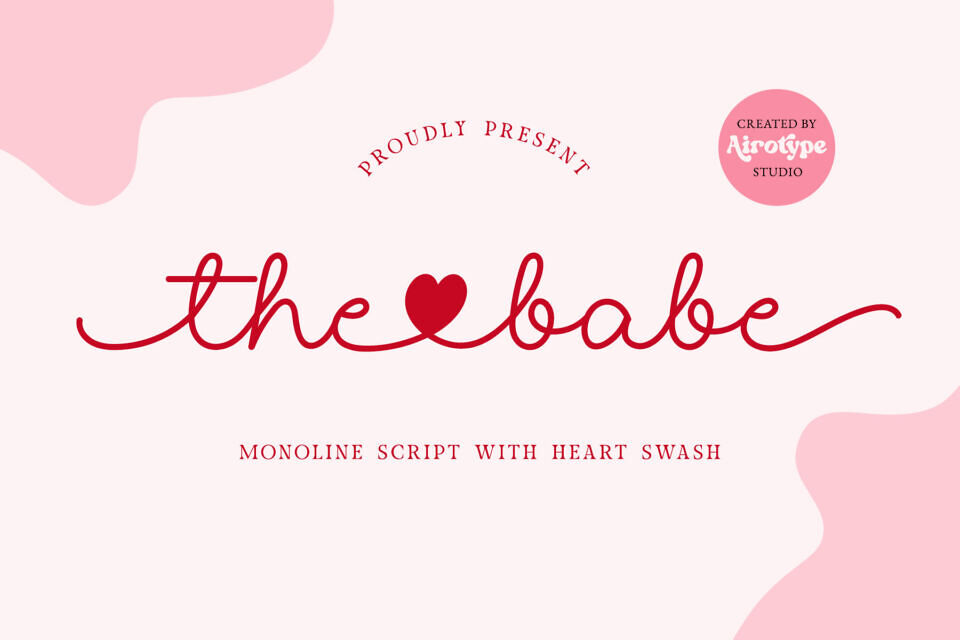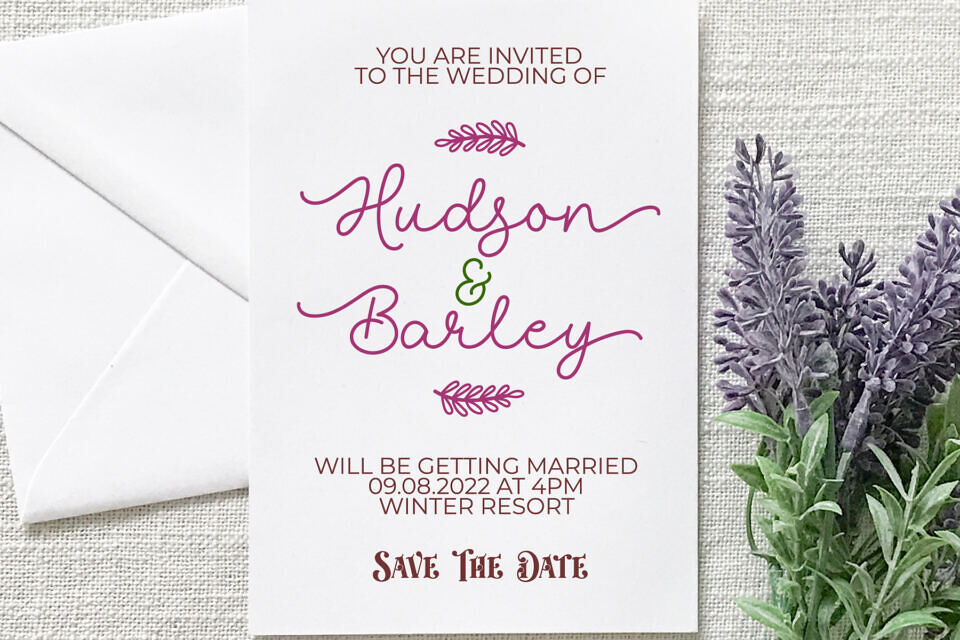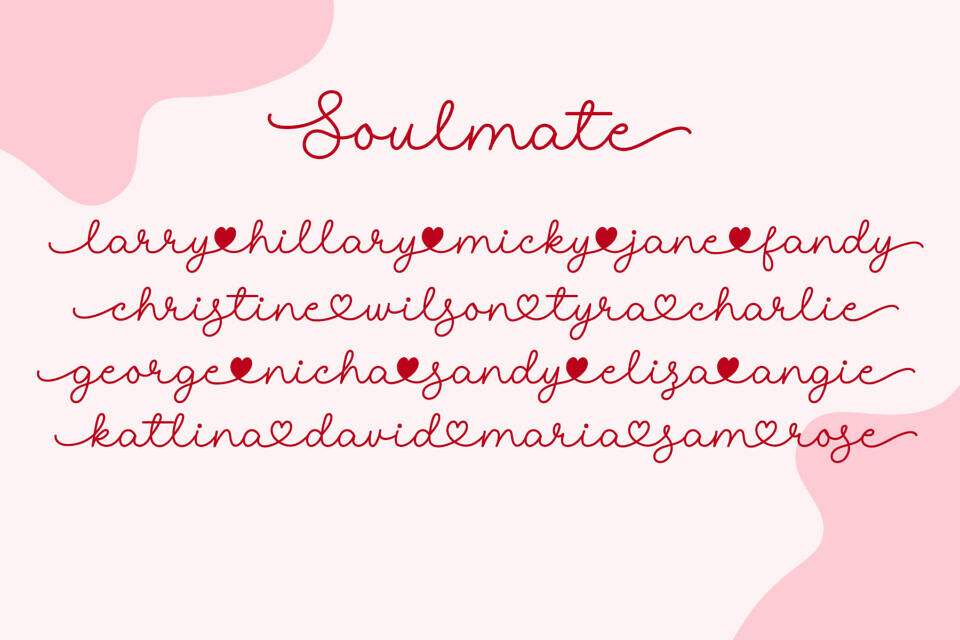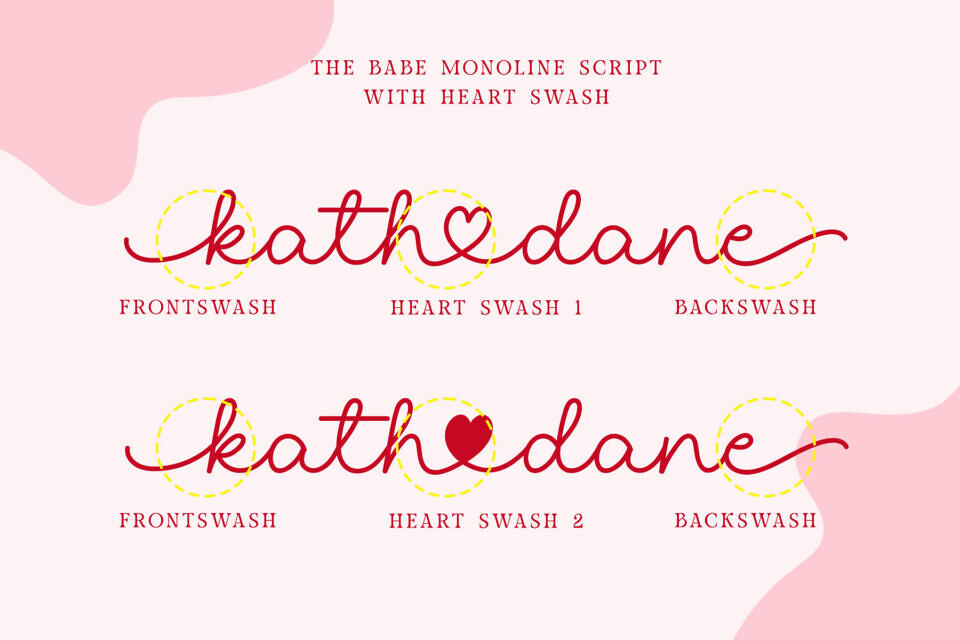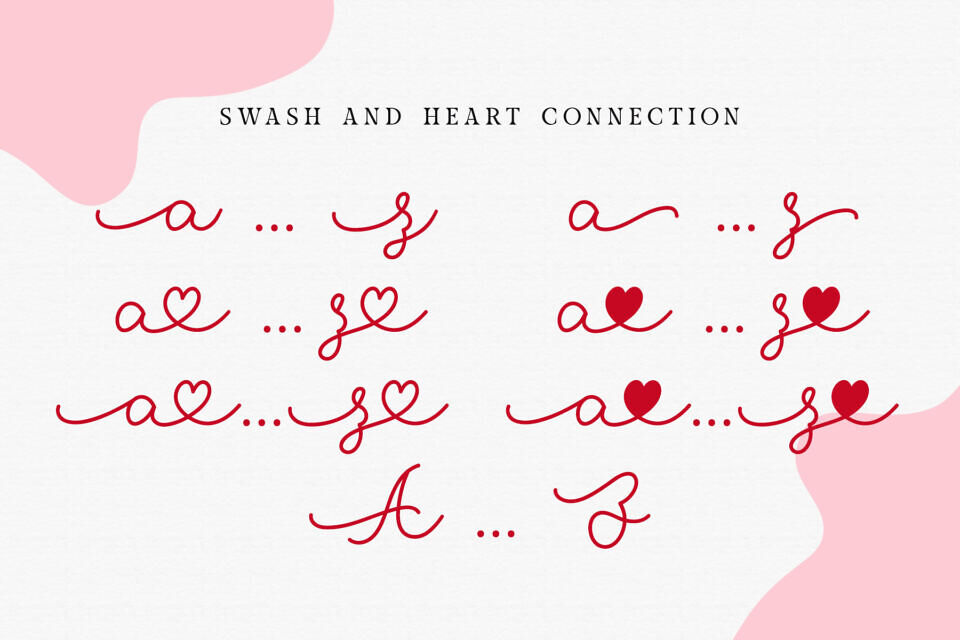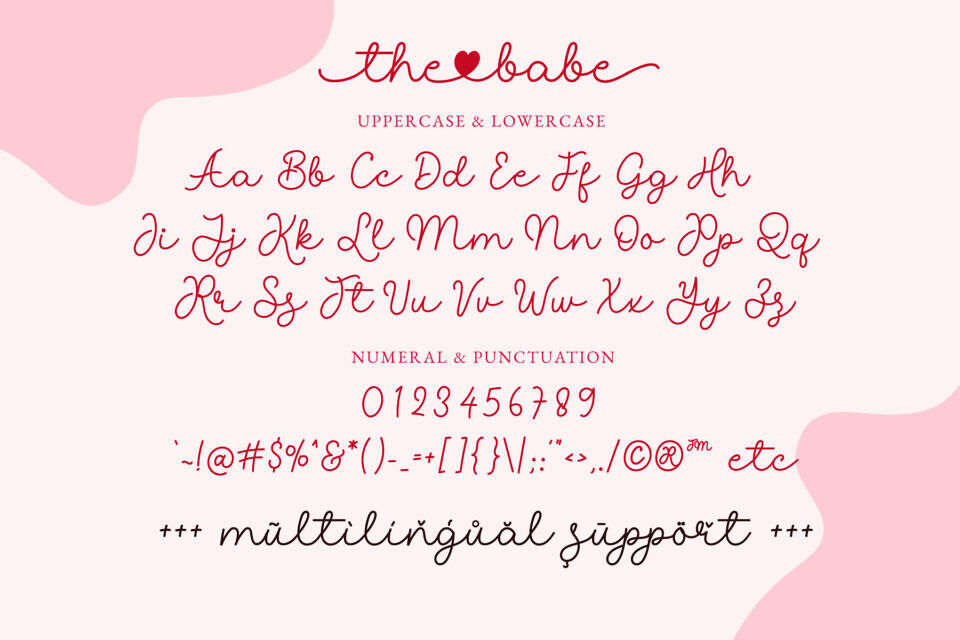
The Babe is a single-line handwritten font with heart swashes. It looks stunning on wedding invitations, thank you cards, quotes, greeting cards, logos, business cards, and every other design which needs a lovely handwritten touch.